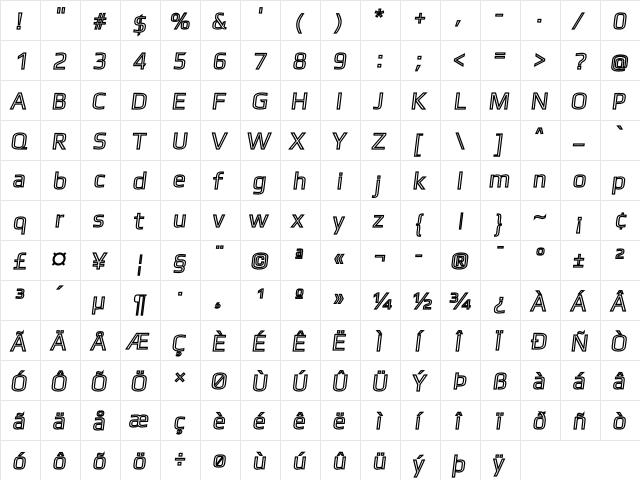
Gamestation Display Outline Italic
| Foundry | Jonas Hecksher, Playtype-types AS |
| Designer | Jonas Hecksher |
Design Context for Gamestation Display Outline Typeface
Gamestation Display Outline is built around its visual character rather than neutral utility — its distinctive forms are designed to make an impression at display sizes. The slanted form adds forward momentum and visual energy.
Font Pairing: Pair with a clean neutral sans-serif for body copy to let Gamestation Display Outline's character lead without overwhelming the composition.
Pro Tip: Treat Gamestation Display Outline as the centrepiece of your typographic hierarchy. One strong heading set in a decorative face can carry an entire layout.